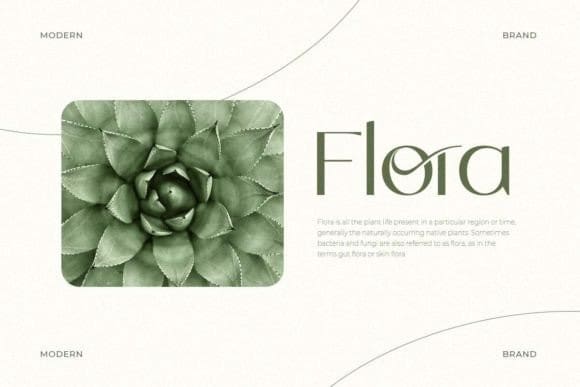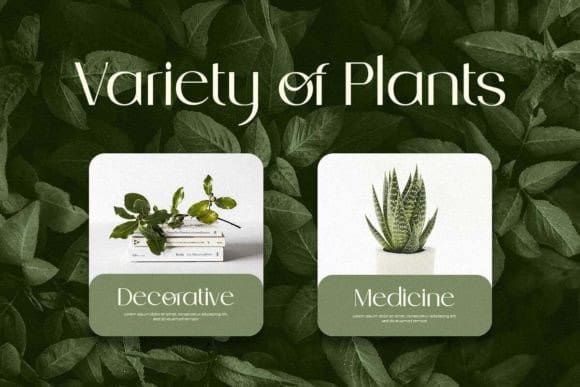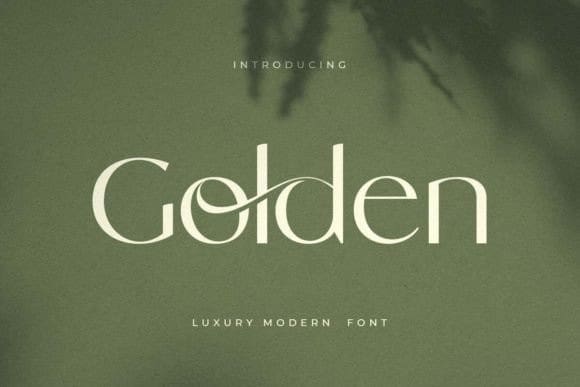
Golden Sans Font
Golden Sans Font is an elegant and bold sans serif font. Fall in love with its incredibly versatile style and use it to create gorgeous wedding invitations, beautiful stationary art, eye-catching social media posts, and much more!